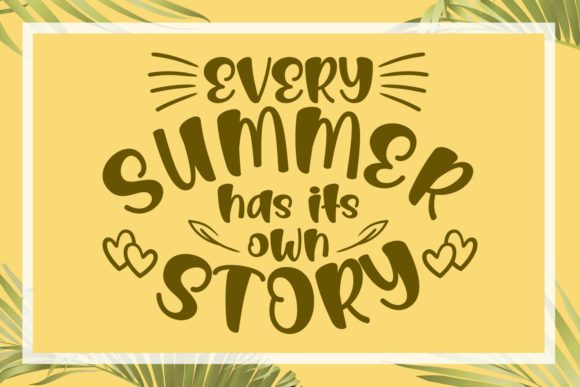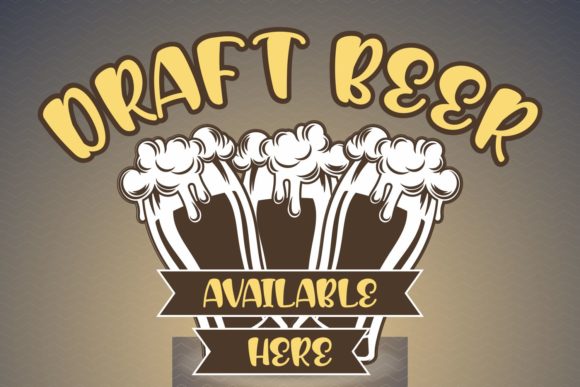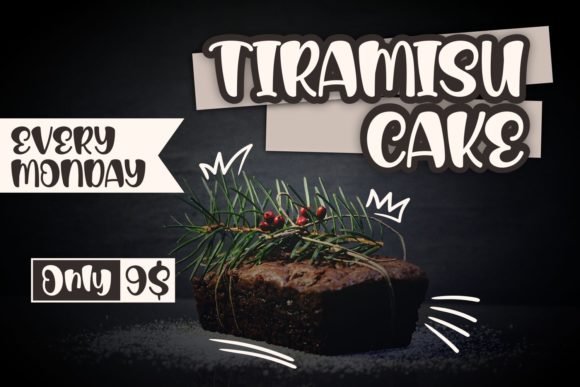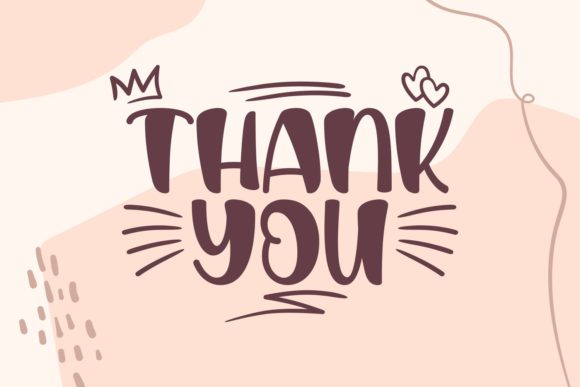
Stay with You Font
Stay With You is a sweet, soft hand-lettered font. The playful rounded characters make it the perfect font for creating stunning designs. It features sweet extras. Get inspired by its authentic feel and use it to create gorgeous wedding invitations, beautiful stationary art, eye-catching social media posts, and cute greeting cards.